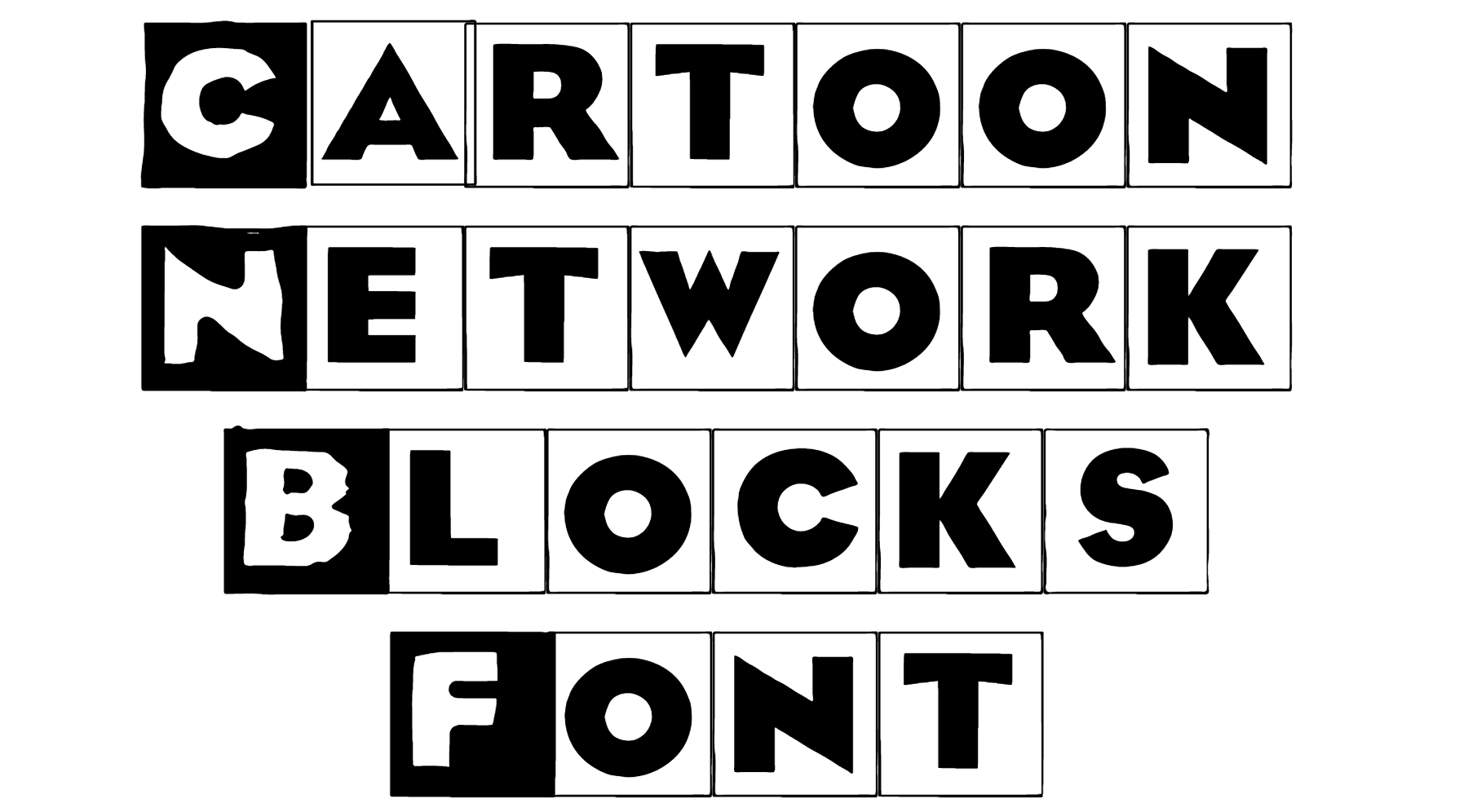
Cartoon Network Blocks
Cartoon Network Blocks is a cartoon font made by I Know Man That looks cool. Its bouncy, rounded letters feel playful, like lettering from a cartoon or a comic book. It's a free download, and you can try it with your own text in the preview above first.
What You Can Type With Cartoon Network Blocks
Cartoon Network Blocks covers the full alphabet in upper and lowercase, plus all ten numbers, so you can set names, dates and prices without switching fonts. Common punctuation such as &, !, ? and @ is included as well. It has 57 accented letters, but not the full set for Spanish or French, so test any non-English words first.
Where Cartoon Network Blocks Works Best
Cartoon Network Blocks is a natural fit for kids' books, birthday invites and fun YouTube thumbnails. Its lowercase letters are small compared to the capitals, so set it a size or two bigger than usual. The file has no kerning data, so in logos and big titles check pairs like AV, To and Wa and tighten the spacing by hand. Cartoon fonts are great for short, fun lines. If you place it over a busy photo, add a thick outline or a drop shadow so it stays readable.
Does Cartoon Network Blocks support accented letters?
Partly. Cartoon Network Blocks has 57 accented letters, but not the complete set for Spanish, French or German. Type your words in the preview above to check before you use it.